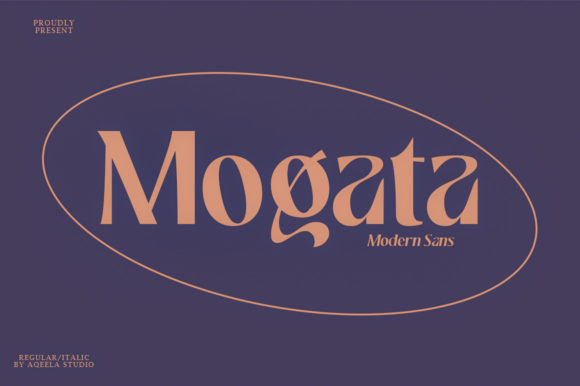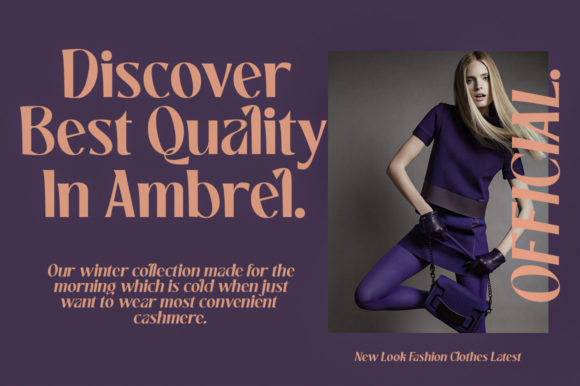
Mogata Font
MOGATA FONT SPECIMEN
Mogata Modern slab serif with beautiful alternates and ligatures, special glyphs, ornament, and multilingual support. It’s a versatile font that works great in large and small sizes. Perfect for editorial projects, logo design, clothing branding, product packaging, magazine headers, or simply as a stylish text overlay to any background image.